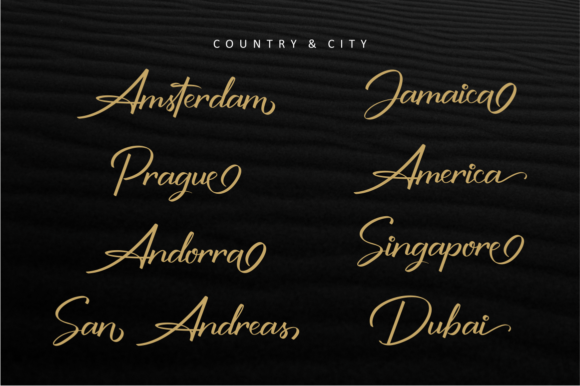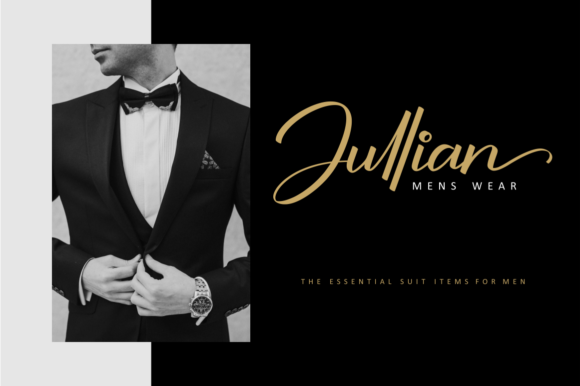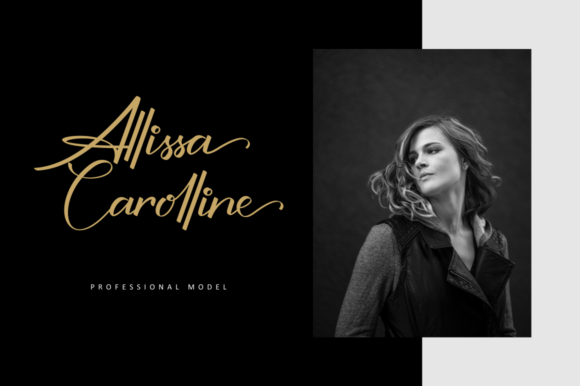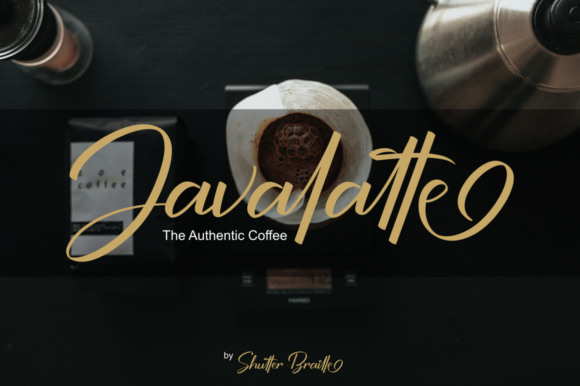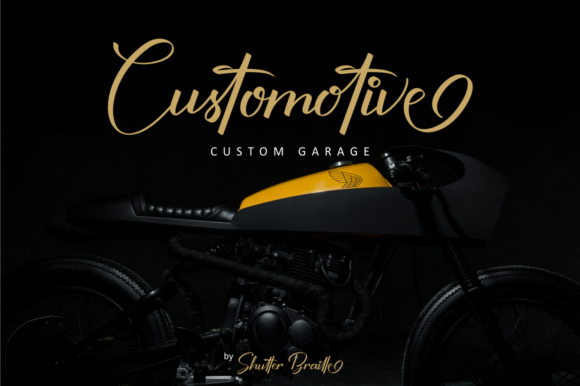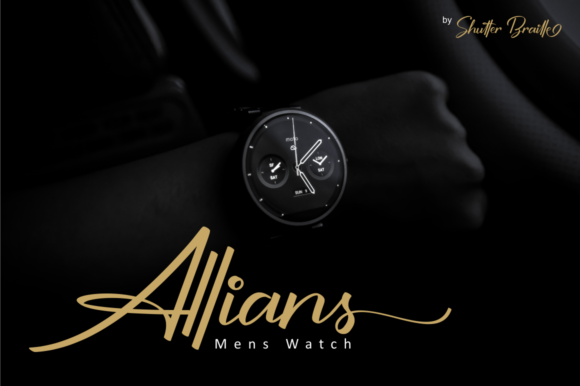
Introduction to Shutter Braille Script Font Font
Fonts play a crucial role in design, and the Shutter Braille Script Font font is a typeface that brings both character and versatility to any project. Whether you’re working on a branding project, a website, or a print design, the Shutter Braille Script Font font offers a unique style that can elevate your work.
The Shutter Braille is a striking calligraphy font.
It was carefully crafted from a sketch, and has a young and energetic feel which can be used to create an unique logo, name tag, quote, business card, and much more It includes start and ending swashes, and middle swashes for some letters.
Key Features of Shutter Braille Script Font Font
Why Choose Shutter Braille Script Font Font?
The Shutter Braille Script Font font is more than just a typeface – it’s a design tool that helps you communicate your message with style and clarity. Its unique character set and versatile design make it suitable for a wide range of applications, from elegant invitations to bold headlines.
With its carefully crafted letterforms and balanced proportions, the Shutter Braille Script Font font ensures readability and visual appeal across all mediums.
What makes Shutter Braille Script Font font special?
The Shutter Braille Script Font font stands out with its unique design, exceptional readability, and versatility across various design applications.